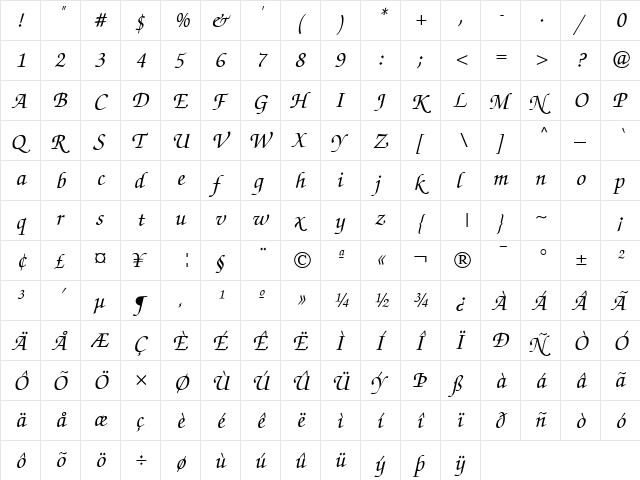
ZappedChancellorSH Med Italic
Design Context for ZappedChancellorSH Typeface
ZappedChancellorSH is a composed and adaptable typeface that performs quietly and consistently across a wide range of design contexts. Its italic angle brings a sense of urgency and motion to the letterforms.
Pro Tip: Use ZappedChancellorSH for emphasis, pull quotes, and subheadings where its slanted energy can add rhythm to the layout.